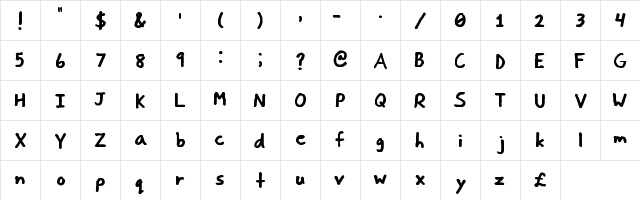
MrMcD iNk Regular
Design Context for MrMcD iNk Typeface
MrMcD iNk is a composed and adaptable typeface that performs quietly and consistently across a wide range of design contexts.